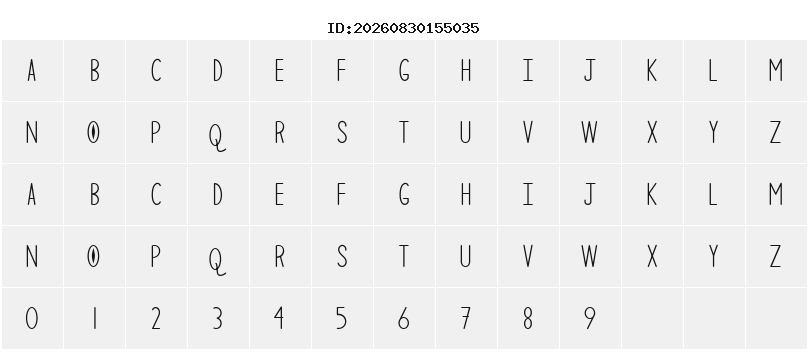
• Font Name: The Curious Cat
• Designer: Misti's Fonts (Misti hammers)
About The Curious Cat.ttf
The Curious Cat.ttf is a modern, elegant sans-serif font designed for ultimate readability and visual harmony. Perfect for branding, headlines, web design, and print materials.